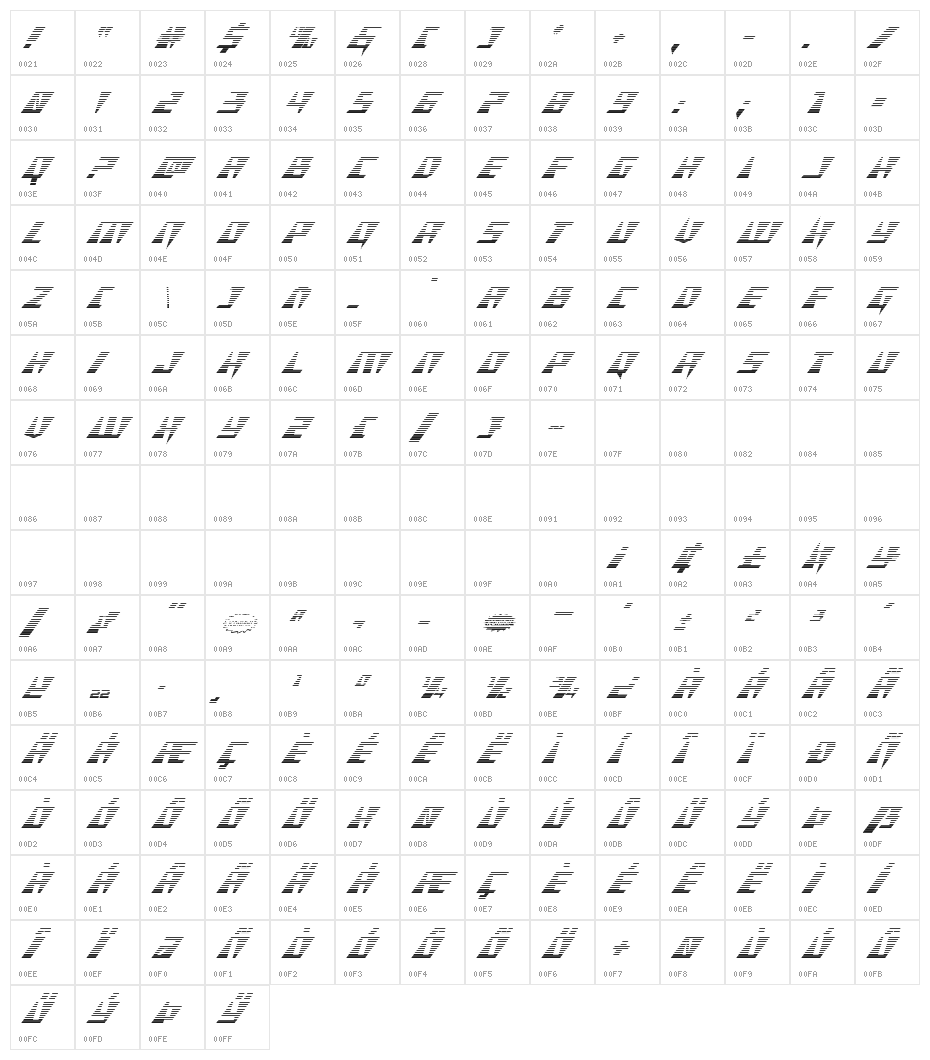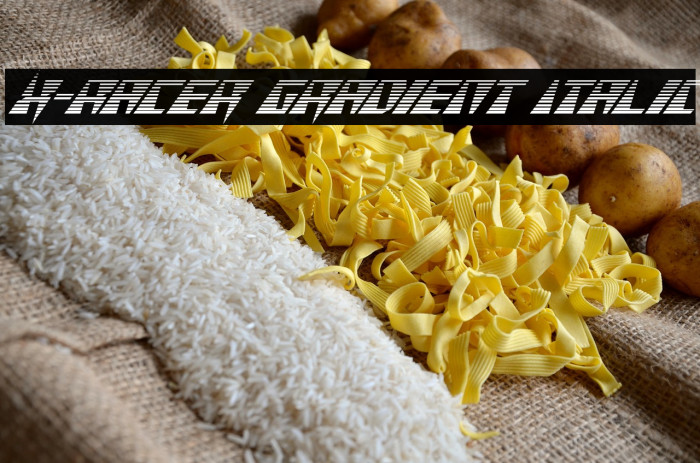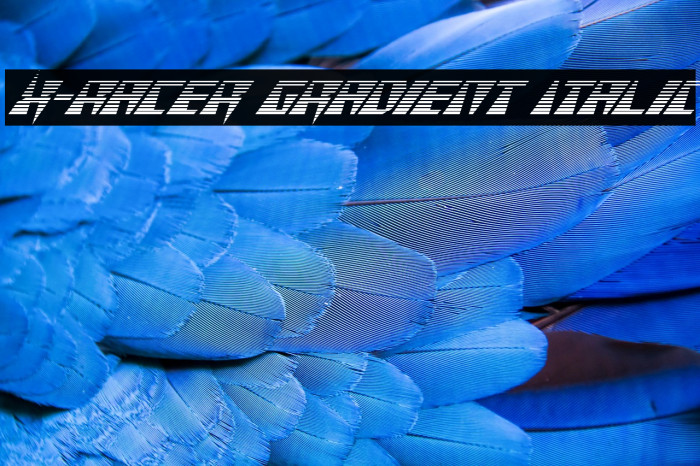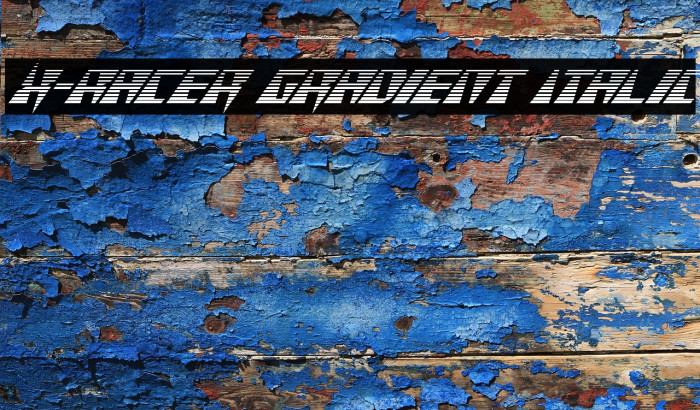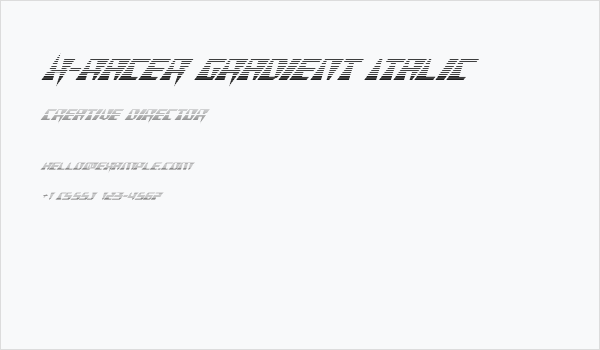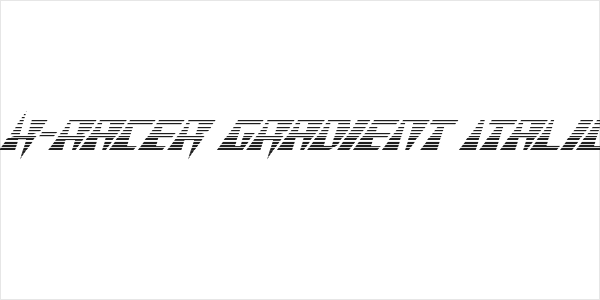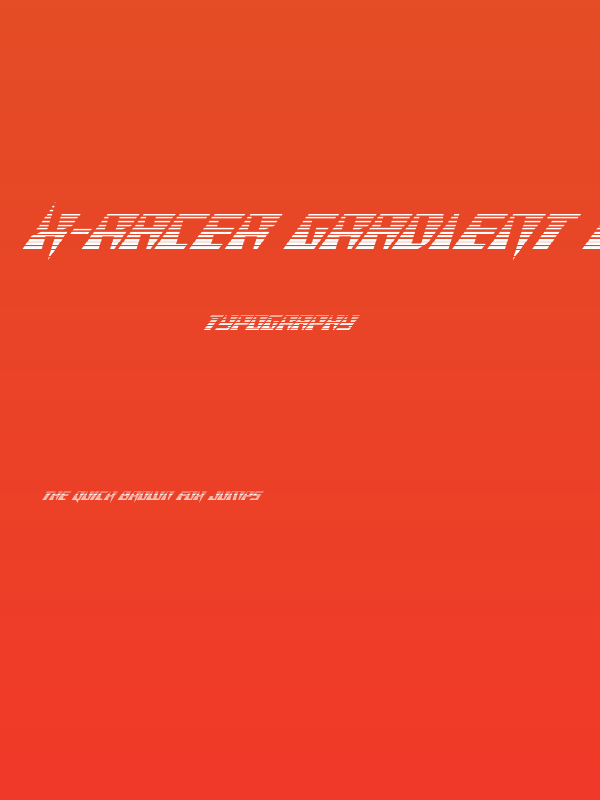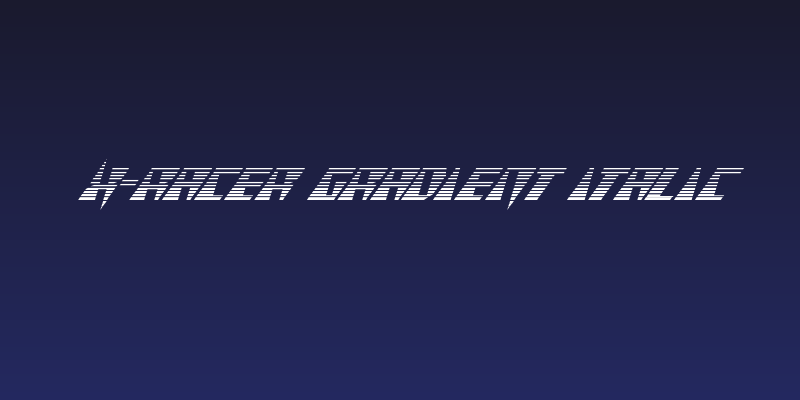
X-Racer Gradient Italic Font
X-Racer Gradient Italic Description
This font features a dynamic, futuristic design with a strong emphasis on movement and speed. The characters are italicized and composed of horizontal lines that create a gradient effect, enhancing the sense of motion. The sharp, angular edges and slanted orientation give it a sleek, modern appearance. This style is reminiscent of racing graphics, making it ideal for projects that require a sense of energy and forward momentum. The font's unique structure and visual impact make it suitable for eye-catching designs.
| Proposed Projects | Ideal for automotive branding, sports event posters, video game titles, and futuristic-themed designs. |